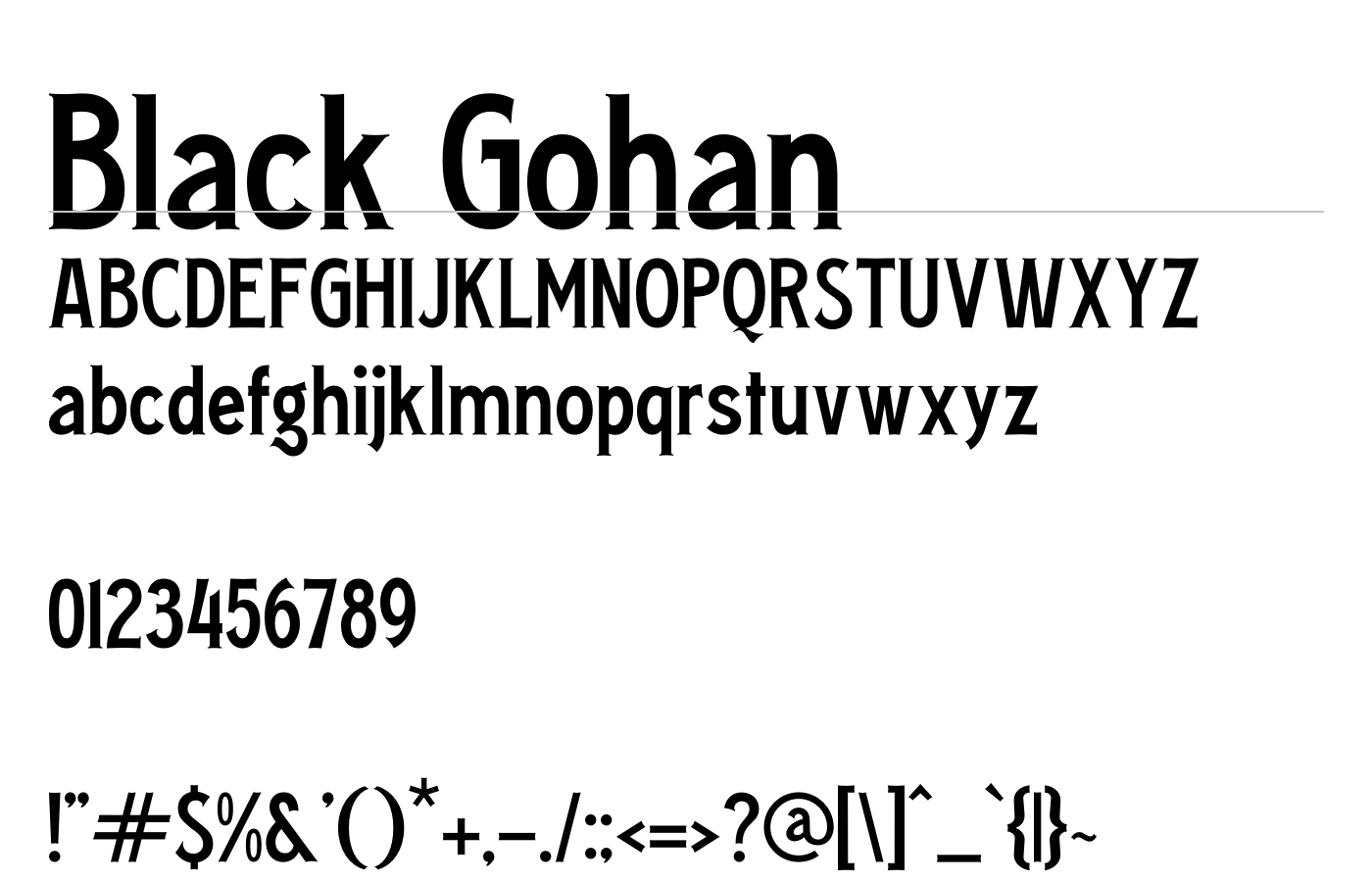
Black Gohan is a distinctive serif font with a condensed and tall structure, featuring moderate contrast between thick and thin strokes that gives it a striking and elegant presence. Its sharp, slightly whimsical letterforms and unique details, like the distinctive tail on the "Q" and stylized ampersand, make it perfect for attention-grabbing headlines, logos, and editorial use where personality and sophistication are desired. This font works well in fashion, luxury branding, and creative projects, delivering a modern yet classic vibe with a touch of playful refinement.
Black Gohan Font
About Black Gohan Font